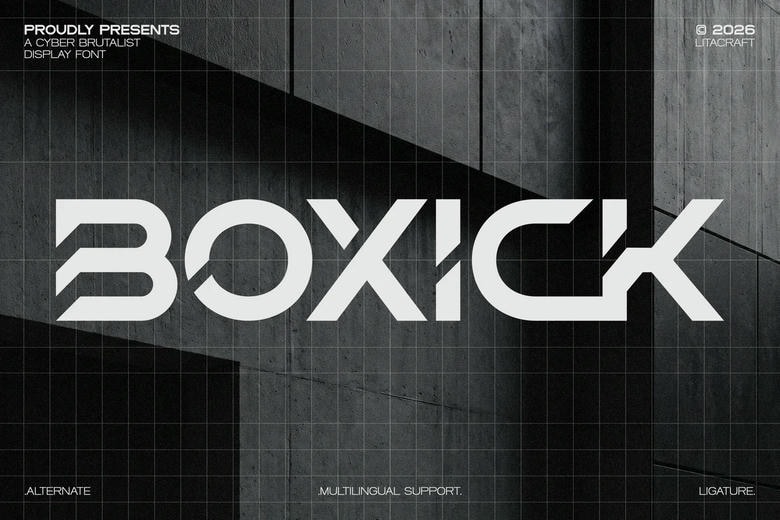
Boxick Font
BOXICK is a wide, heavy-bold display font designed to make a strong impression. Its large geometric shapes and tight counter spaces give it a powerful, fast, and modern look.
BOXICK stands out because of its unique “Aggressive Alternate & Ligature” feature. It includes futuristic stencil alternates and custom ligatures that can turn regular text into bold, custom cyber-industrial logos.
BOXICK is a great choice for gaming interfaces, automotive branding, sci-fi posters, or bold editorial layouts. It gives you strong, impactful typography for any project.
Boxick Display Font